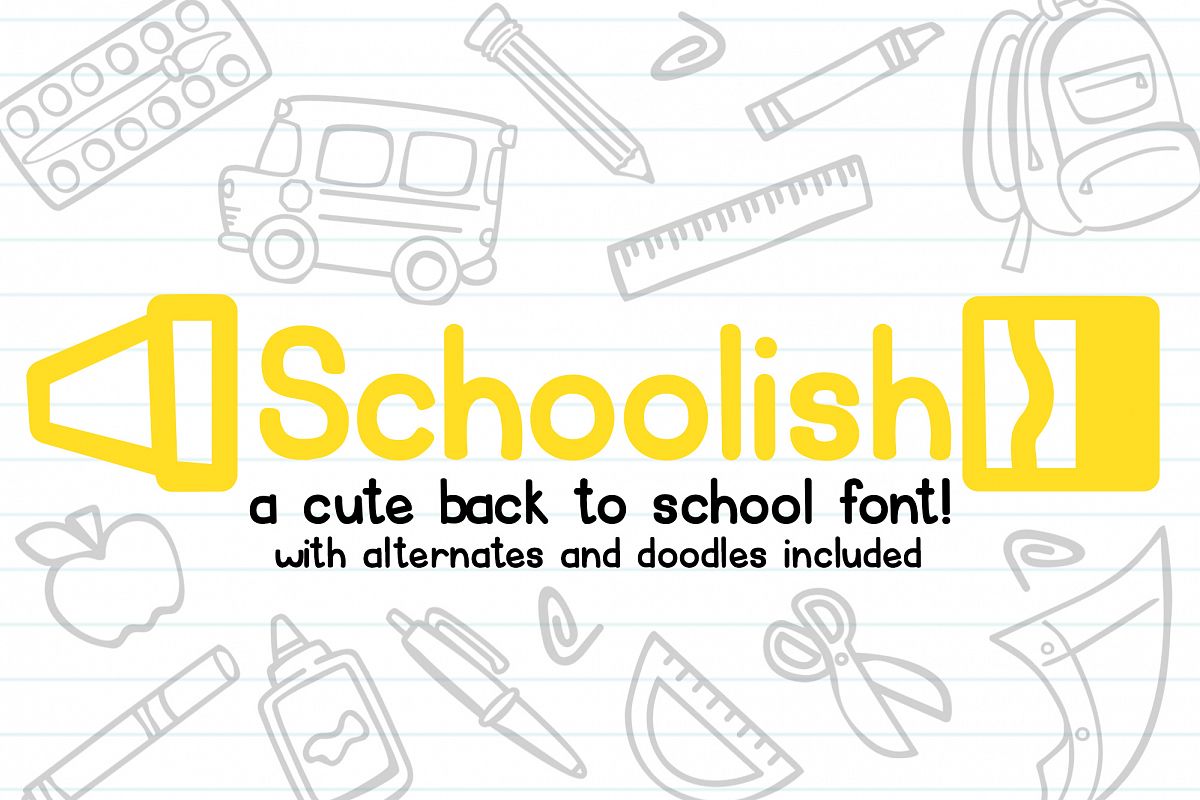
Schoolish| A Cute Back to School Font| With Doodles!
My first back to school font! This also comes with special punctuations to create a crayon and a pencil at the end of names, school items, name tags, you name it!